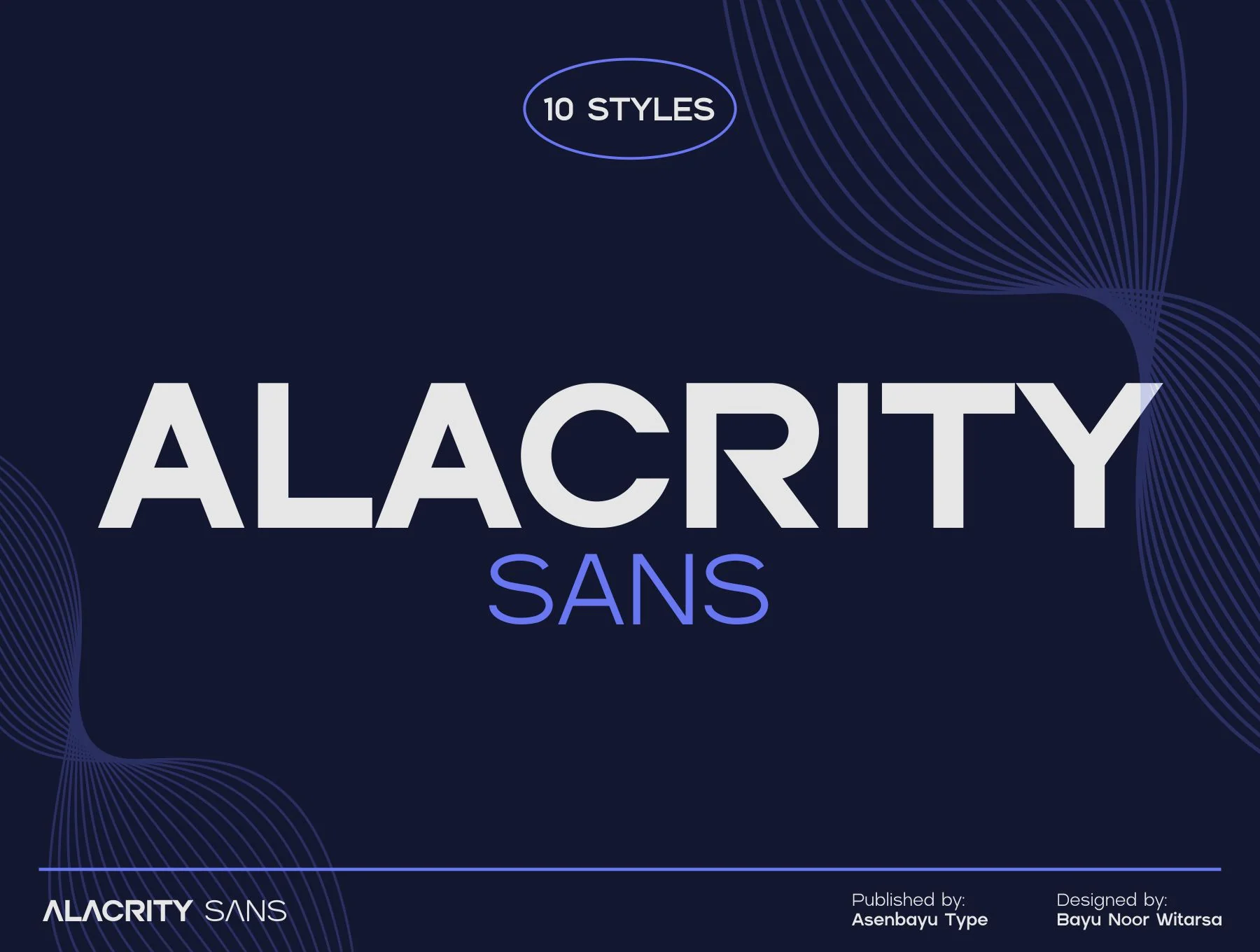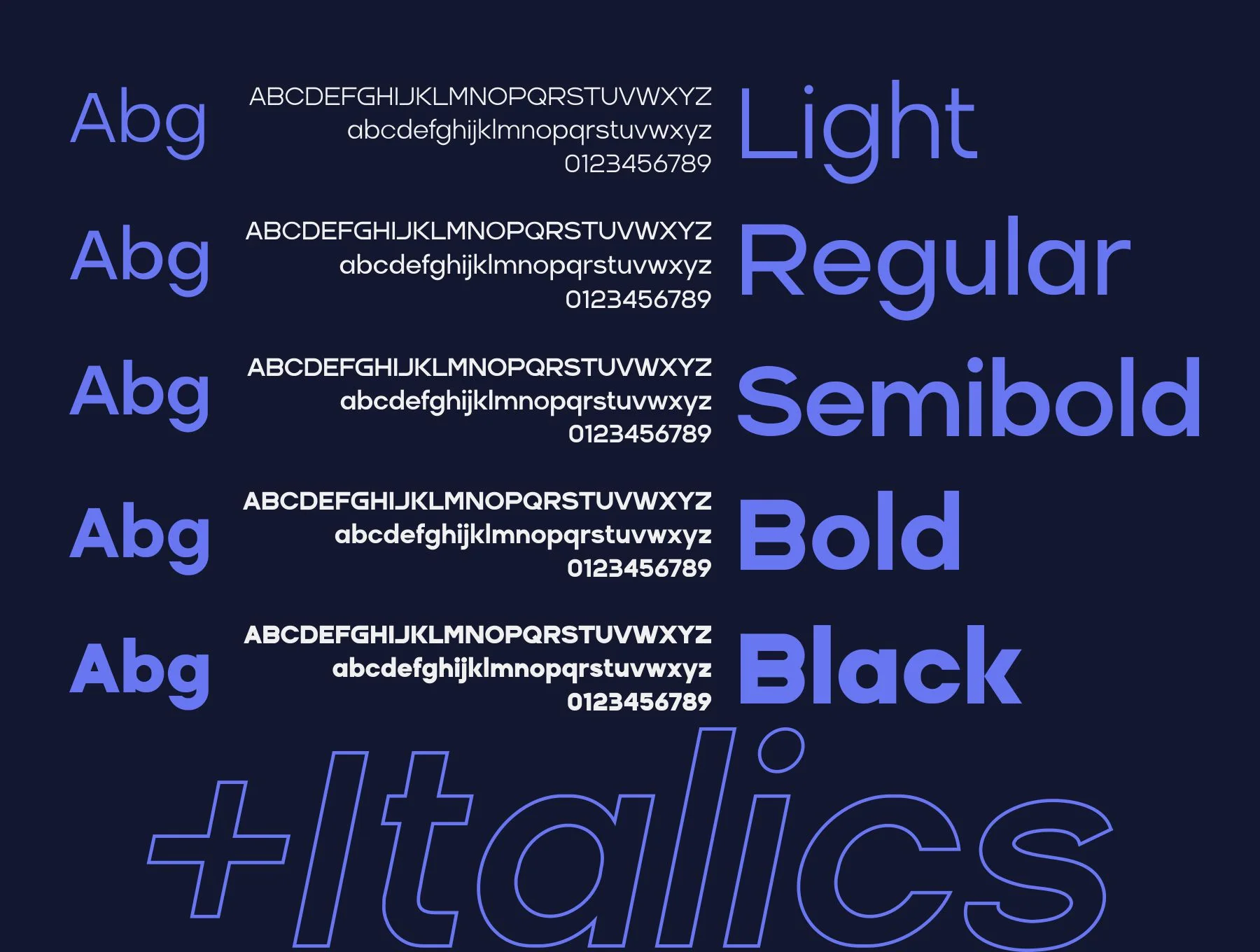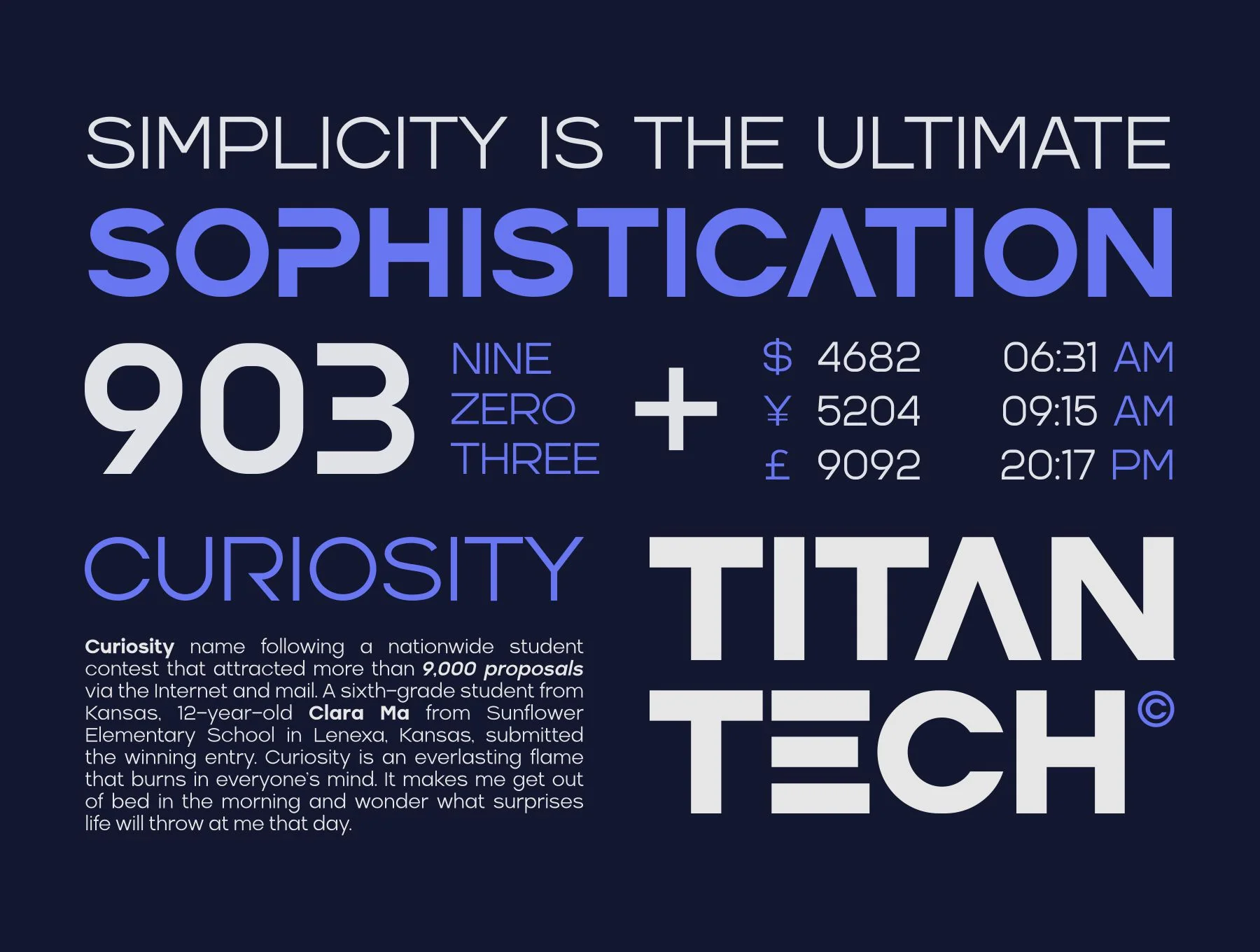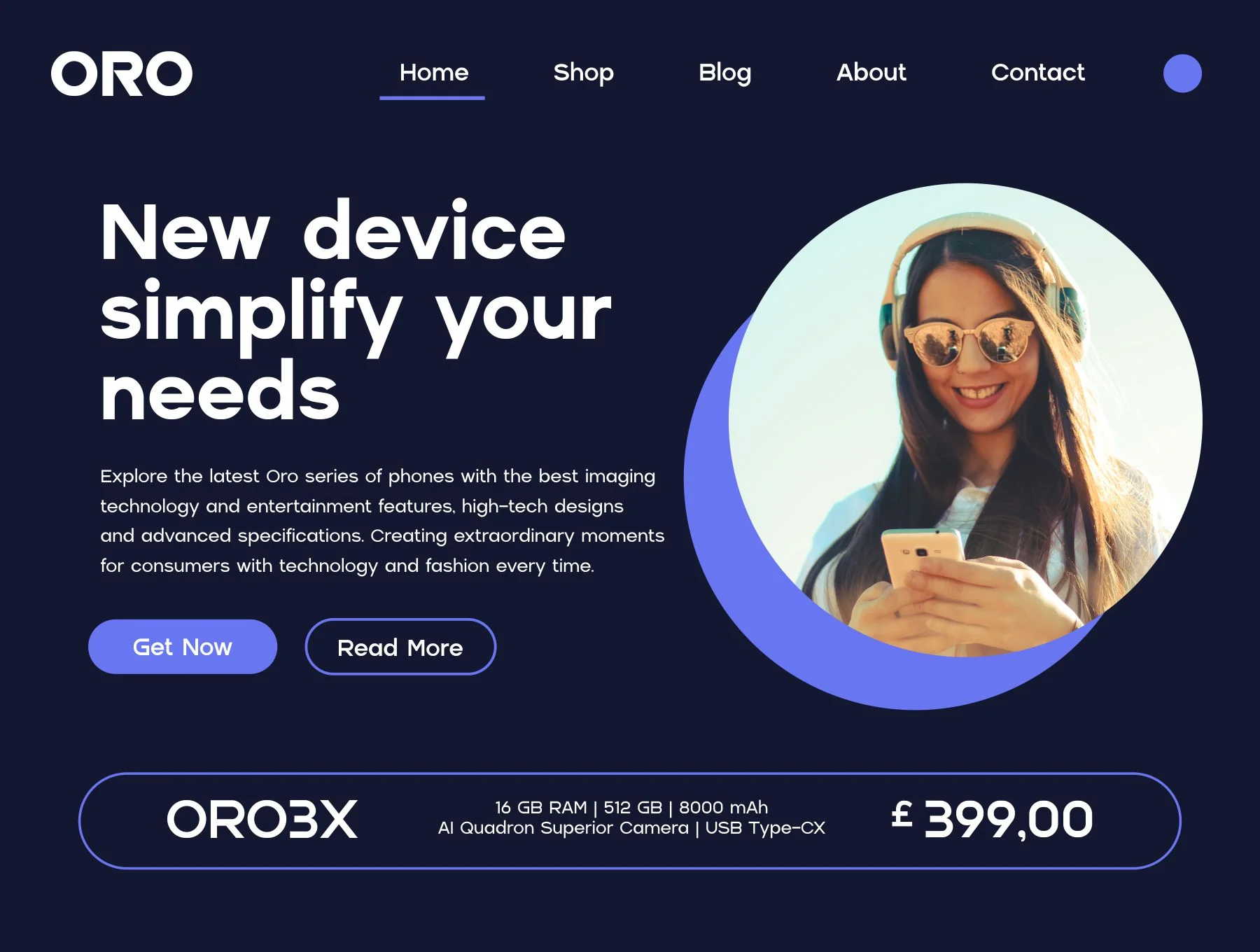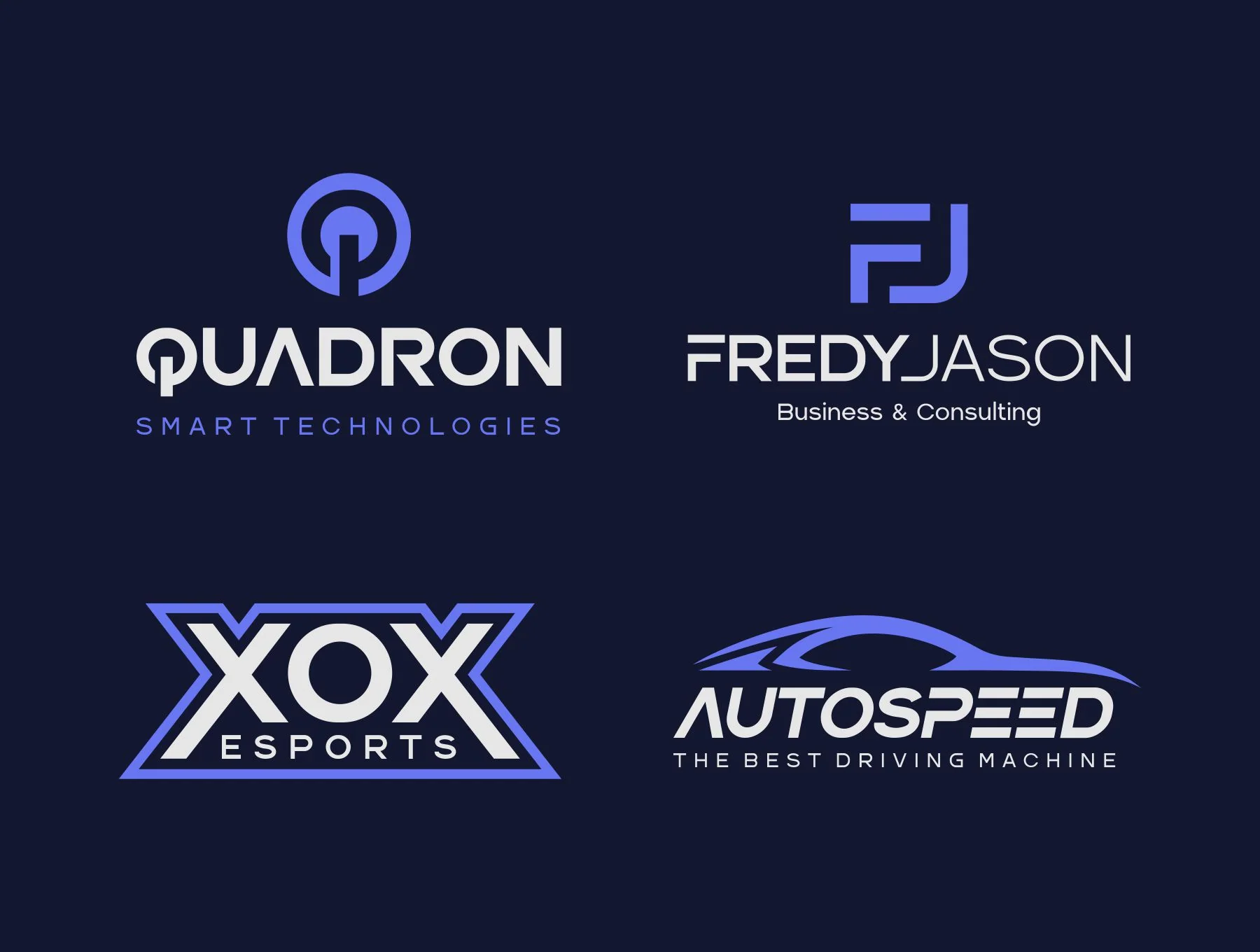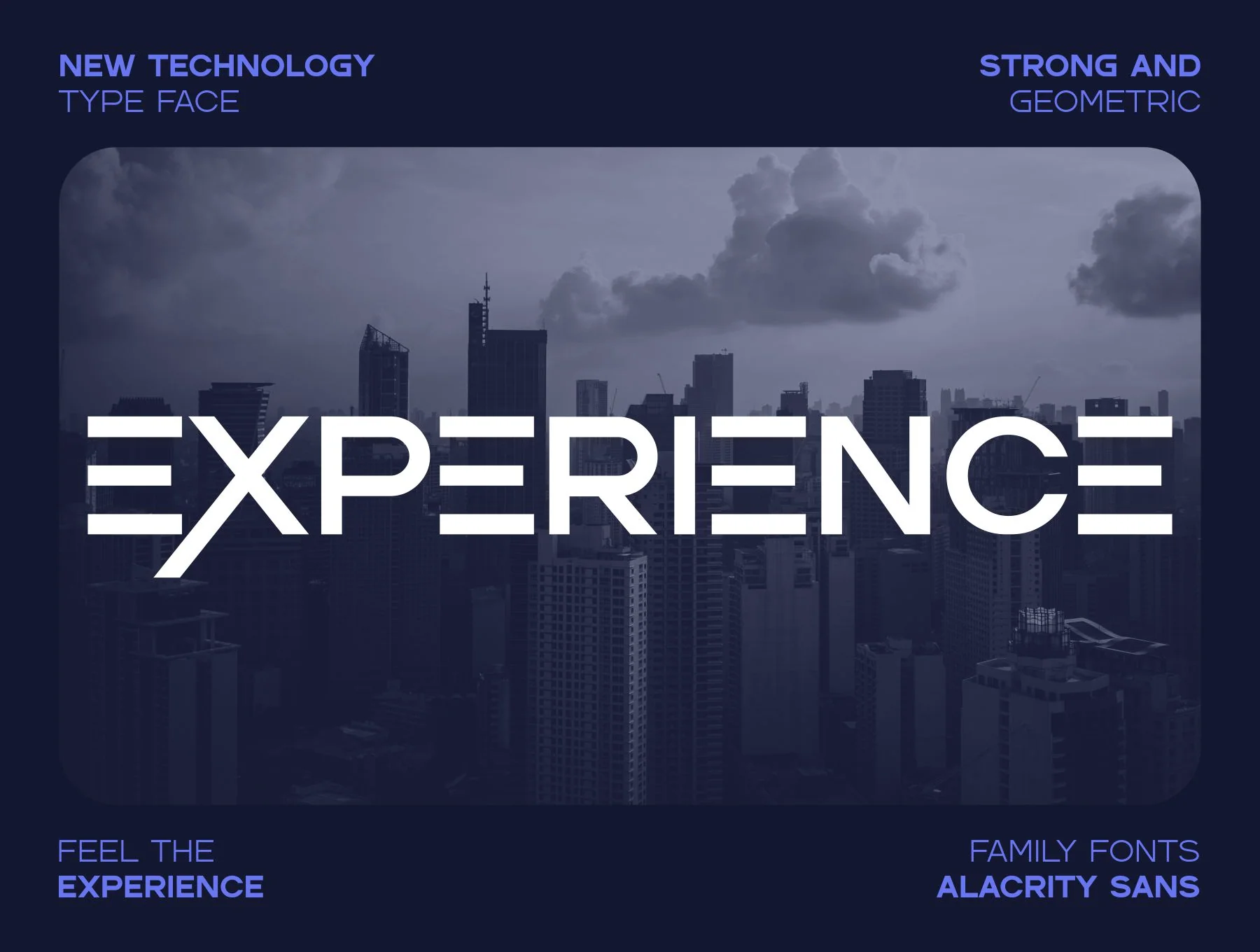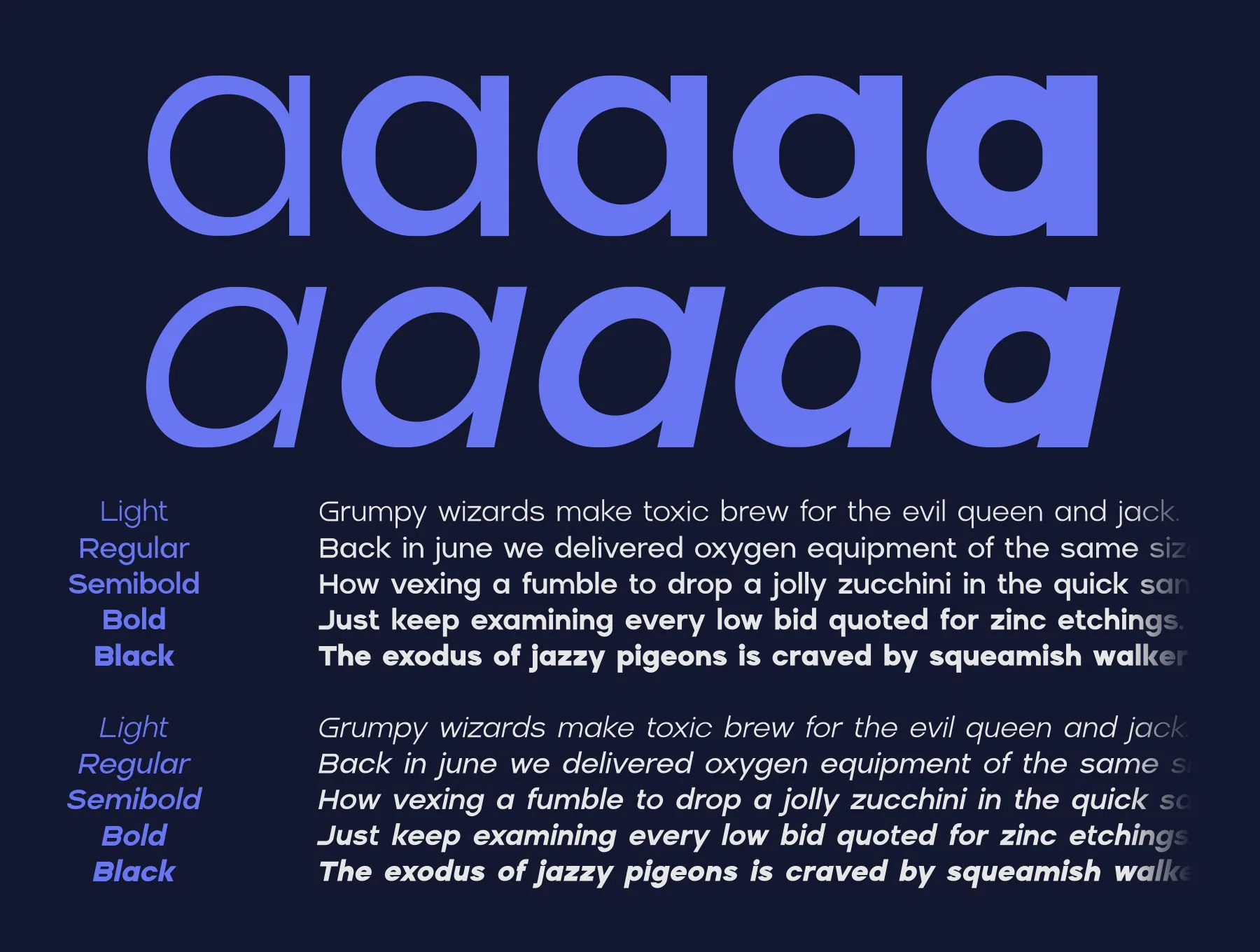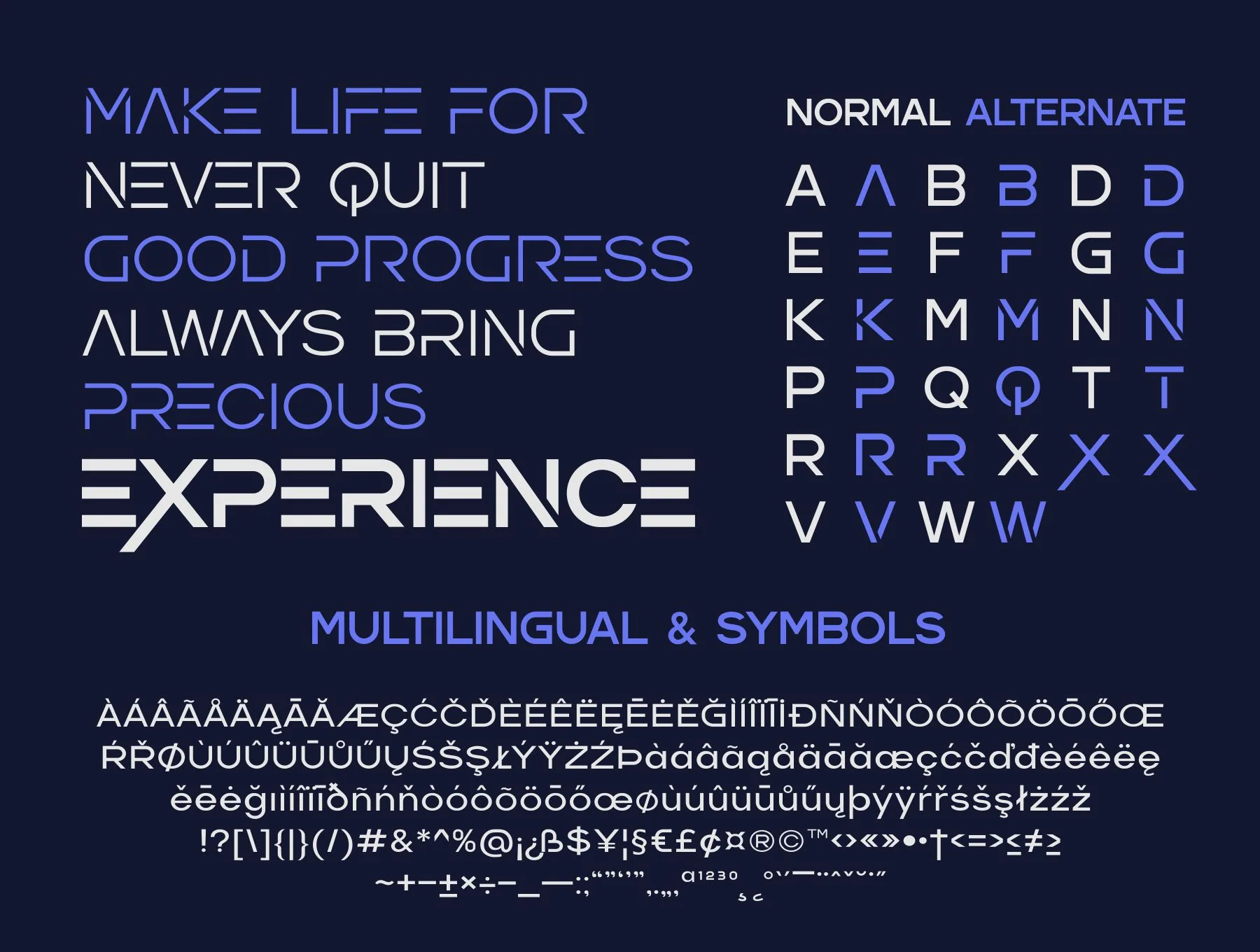
Alacrity Sans Fonts Family
Contemporary Geometric Versatile Font Family
Basic Glyph
Numbers & Symbols
Alternative Styles
Supports Several Languages
Alacrity Sans is a versatile sans serif font family with refined geometric forms, ideal for sleek, contemporary, and professional work such as logos, branding, magazines, business cards, websites, stationery, displays, sports, and tech projects. It includes 10 styles from Light to Black with italics, plus OpenType features, kerning, alternates, multilingual support, letters, numbers, and punctuation.